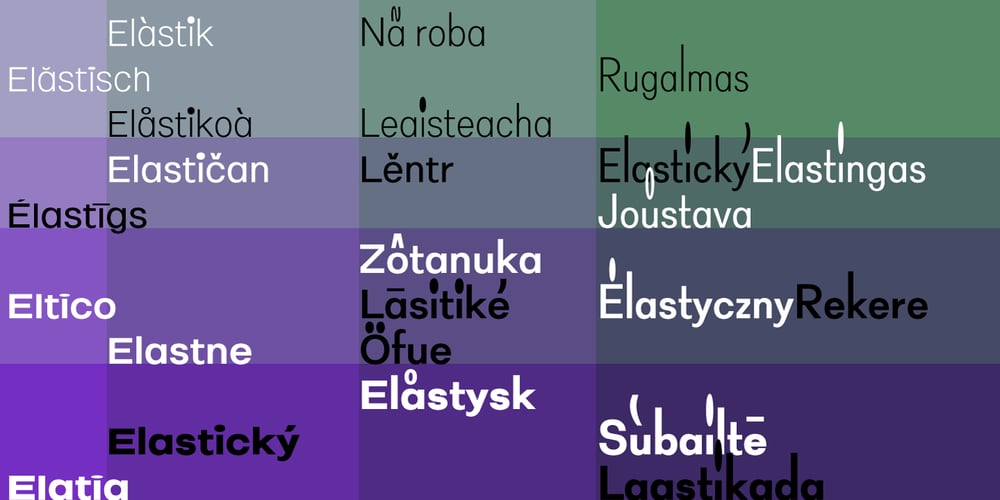
Elastik Font Family was designed by Benoît Bodhuin and published by bb-bureau. Elastik contains 16 styles and family package options. Grotesk typeface with elastic punctuation & diacritical mark. in 4 weights: Light, regular, Medium and Bold by 4 styles: A (small diacritical), B (normal diacritical), C (hight diacritical) and D (very hight diacritical) language: all latin glyphs